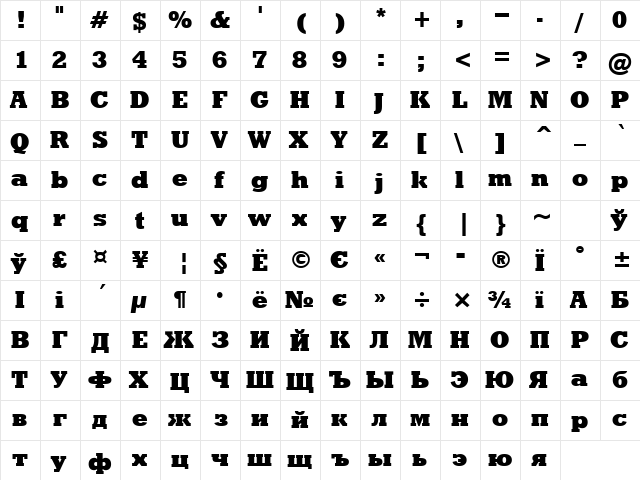
RodeoExtraBold Normal
Design Context for RodeoExtraBold Typeface
RodeoExtraBold is a composed and adaptable typeface that performs quietly and consistently across a wide range of design contexts. Its bold stroke weight gives it real presence on the page.